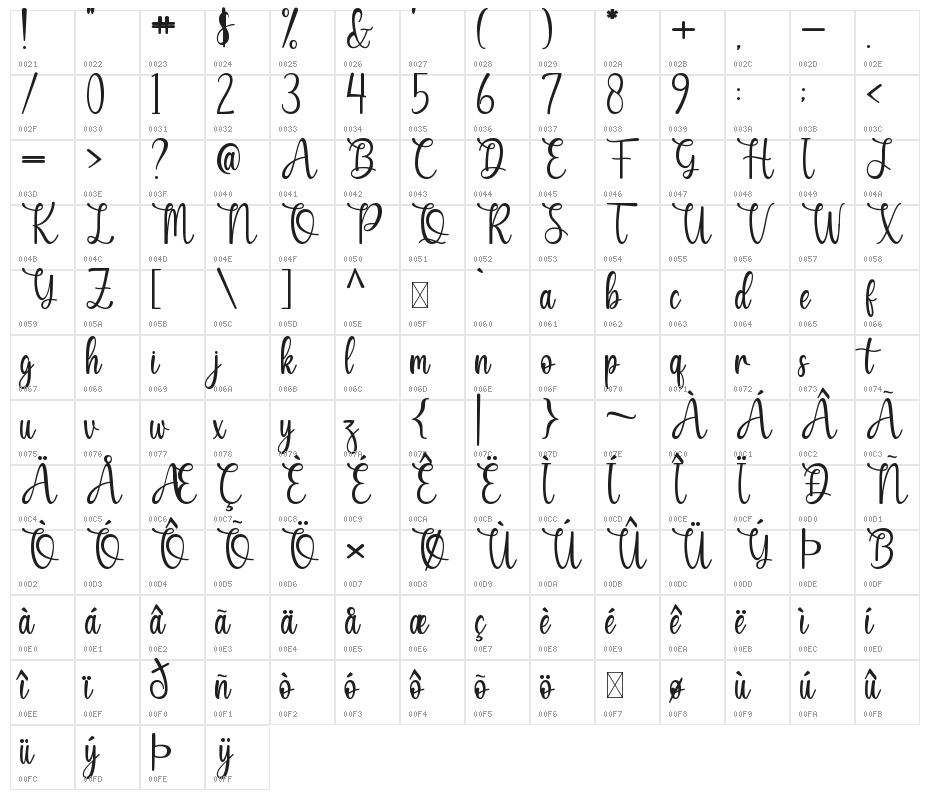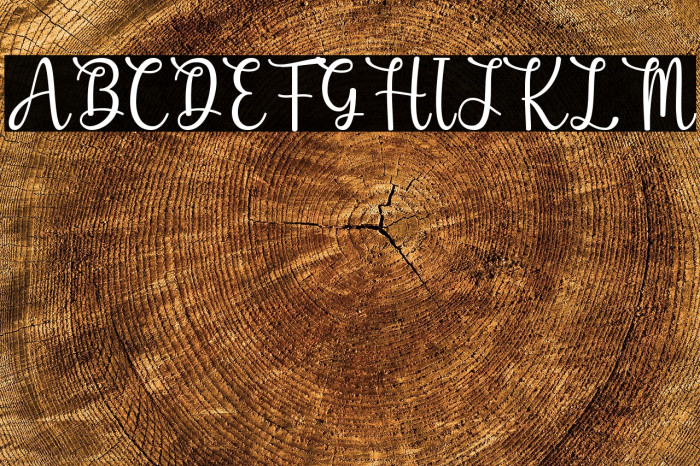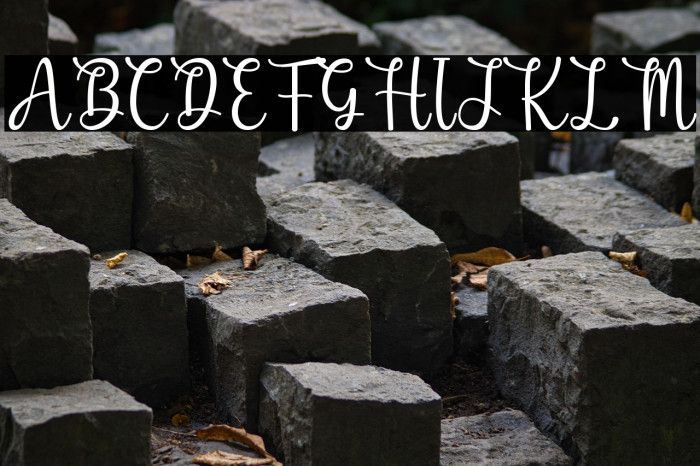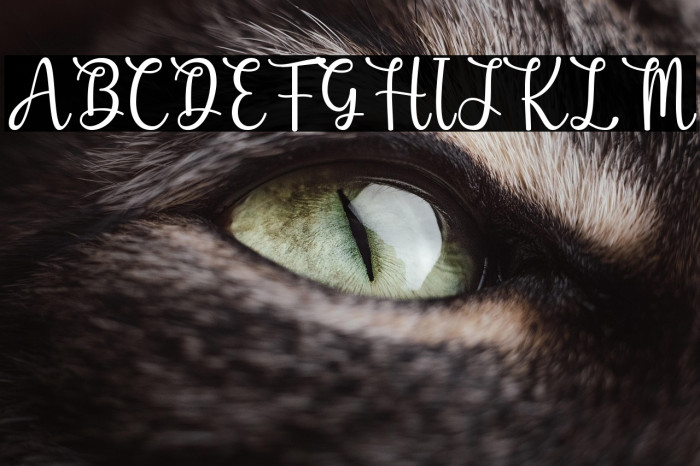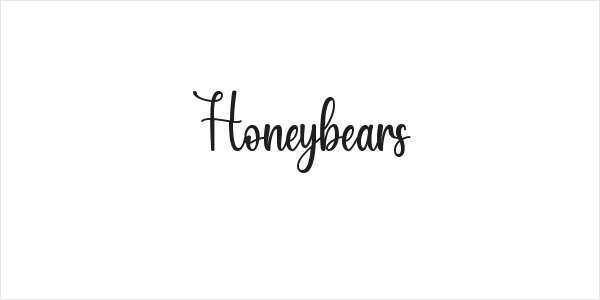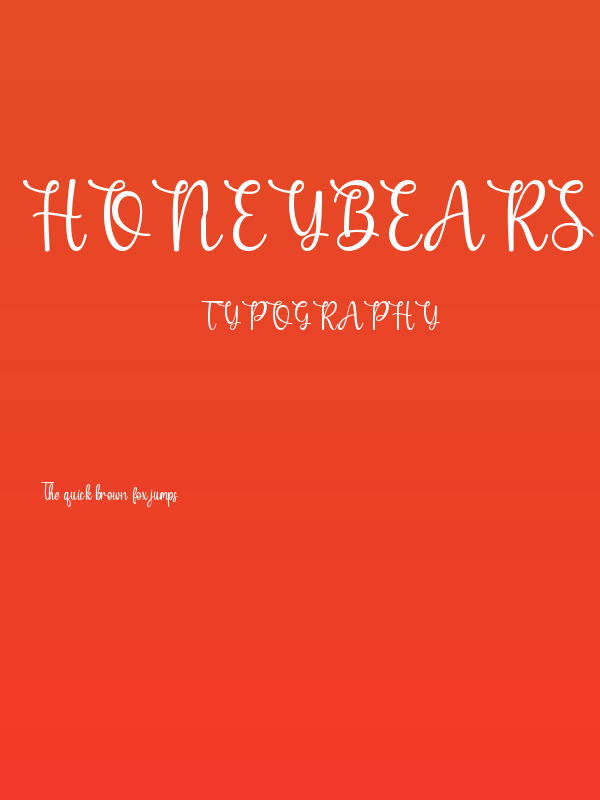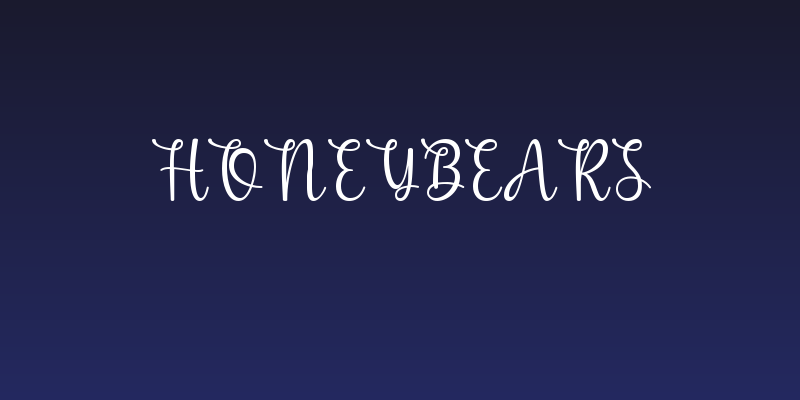
Honeybears Font
Honeybears Description
This font features a playful and whimsical script style, characterized by its flowing, interconnected letters. The uppercase letters maintain a consistent height with slight flourishes, while the lowercase letters exhibit a more pronounced cursive style with loops and curves. The numbers are tall and slender, complementing the overall elegant yet casual appearance. Special characters are designed with a similar playful flair, making them suitable for creative projects. The font's overall design is both approachable and stylish, making it ideal for a variety of uses where a touch of personality is desired.
| Proposed Projects | Ideal for invitations, greeting cards, branding, and social media graphics. |